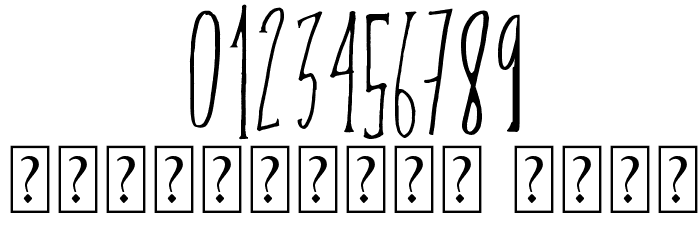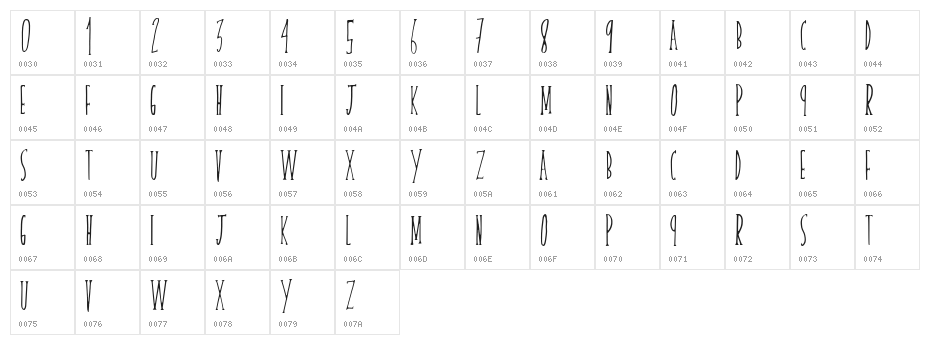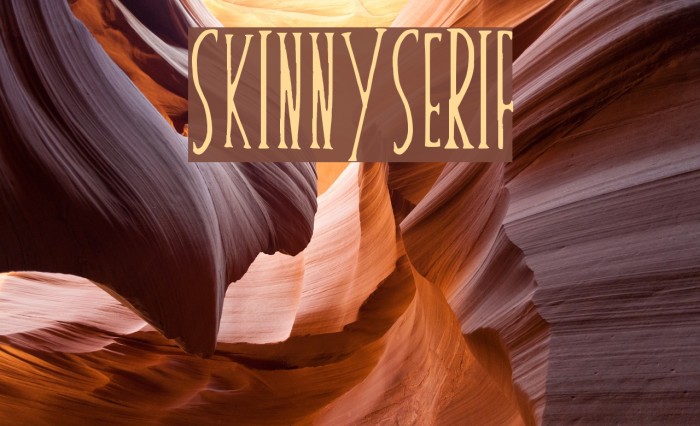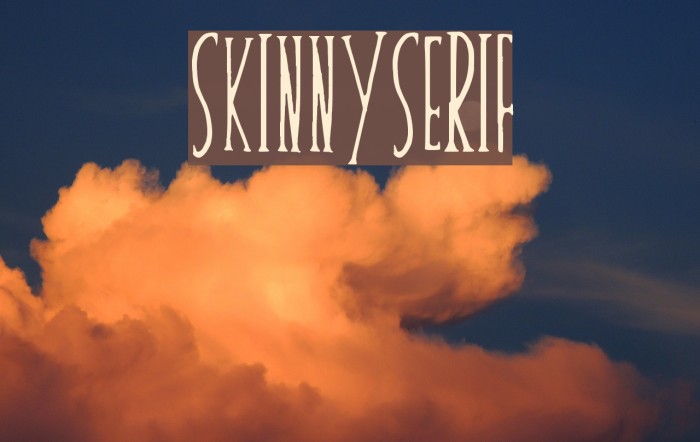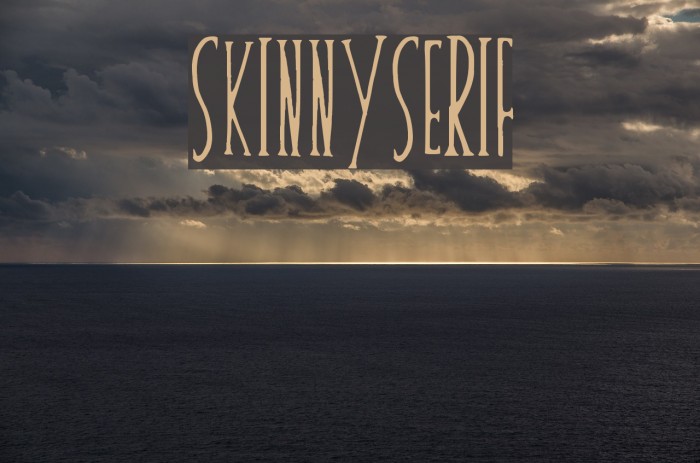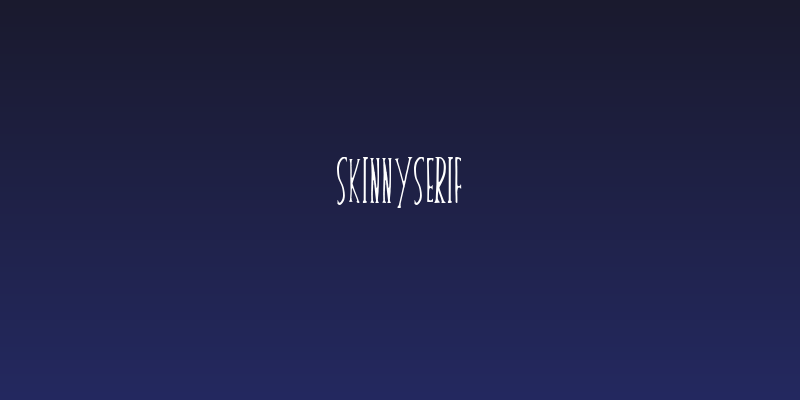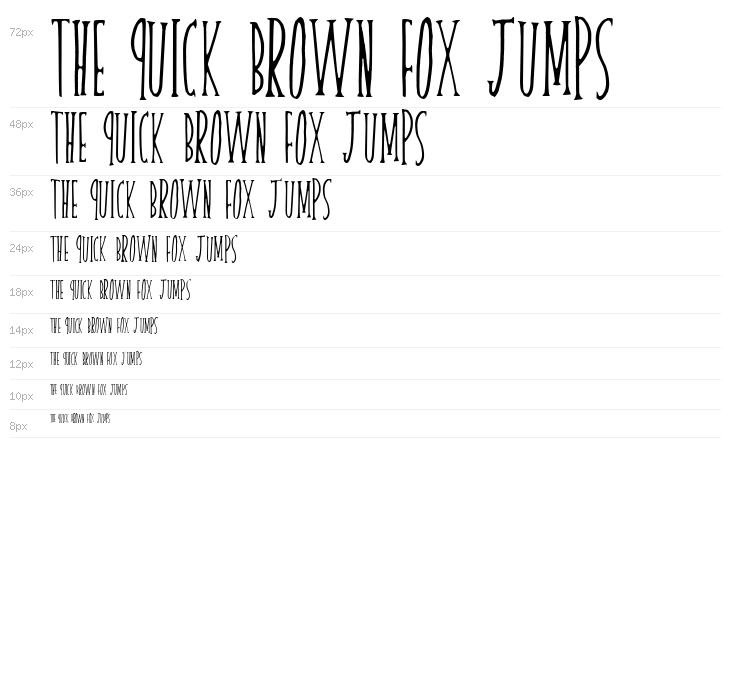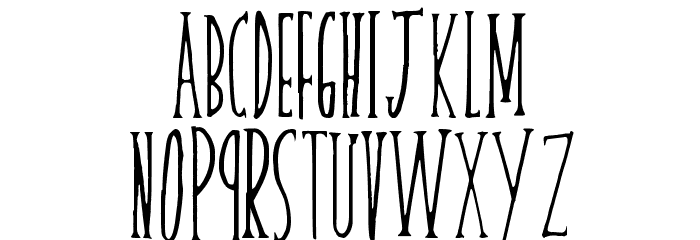
skinnyserif Font
skinnyserif Description
This font features a tall and slender design with elegant serifs that give it a sophisticated and artistic appearance. The characters are elongated, creating a sense of height and grace. The uppercase and lowercase letters maintain a consistent style, with thin strokes and subtle curves that add to its refined look. The numerals are similarly styled, ensuring uniformity across all characters. The overall design is both modern and classic, making it versatile for various applications. The special characters are uniquely crafted, maintaining the font's distinctive aesthetic.
| Proposed Projects | Ideal for fashion magazines, luxury branding, wedding invitations, and artistic posters. |